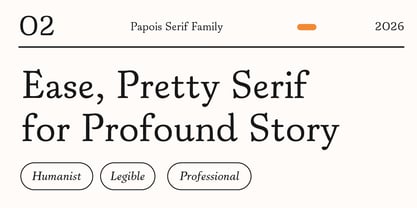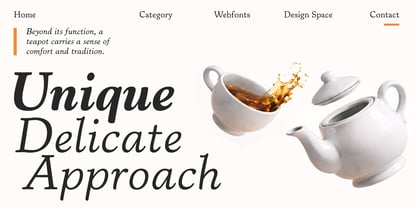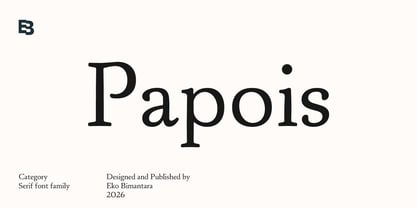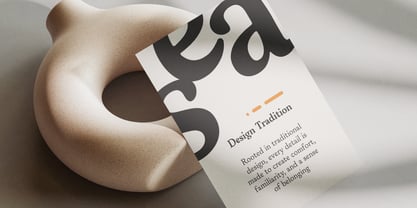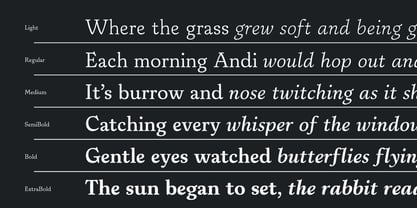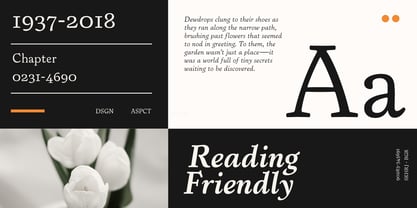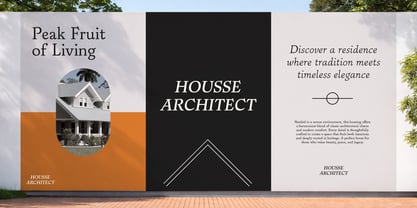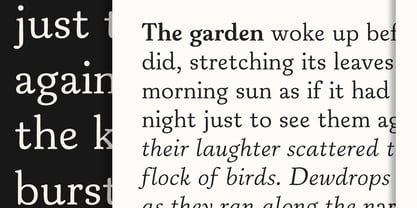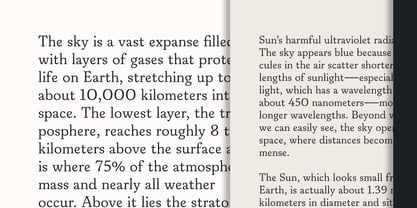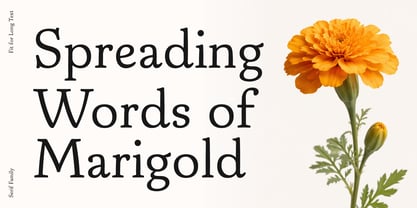
Papois
par Eko Bimantara
La famille de polices Papois a été conçue par Eko Bimantara et publiée par Eko Bimantara. Papois contient 12 styles et options de package familial. En savoir plus sur cette famille
Papois is a warm humanist serif typeface, carries the warmth and charm of early 20th-century American old-style serifs. It features soft edges, moderate stroke contrast, and a gentle slight diagonal stress that reflects its calligraphic roots. The letterforms feel organic rather than mechanical . Its gentle curves and approachable forms create a friendly yet refined tone, while maintaining clarity and balance for both display and long-form use. With a complete family of 12 styles ranging from light to extrabold, each accompanied by matching italics, Papois offers a flexible typographic system that adapts effortlessly—from elegant editorial layouts to distinctive branding—bringing a subtle, human touch to every composition.
Eko Bimantara is a type designer from Indonesia. Always has an intention to creating fonts that not only look great but also perform across a wide range of mediums and also across wide range of theme. The goal is to give designers the tools to make their projects that speaks a lot with various expression. Eko Bimantara’s fonts are featured in everything from corporate identities to street art posters, and have numerous ideas and concept ready to expand for fresh fonts for years further.